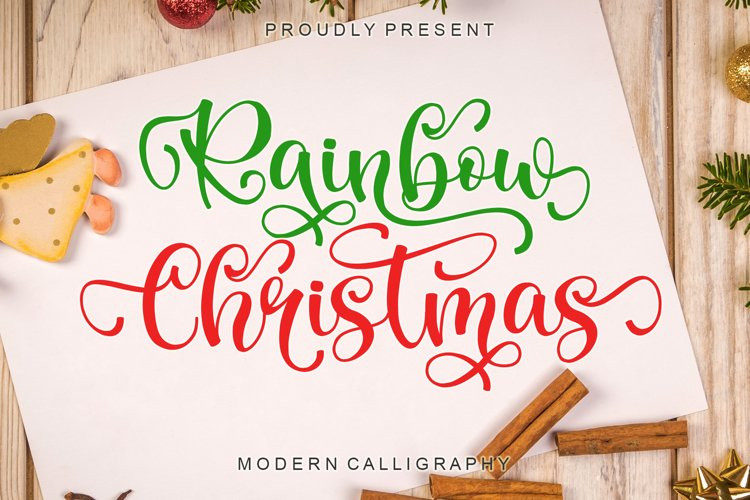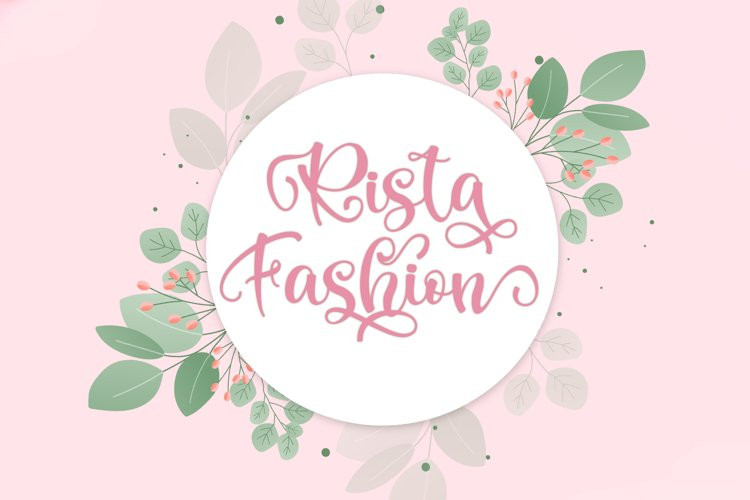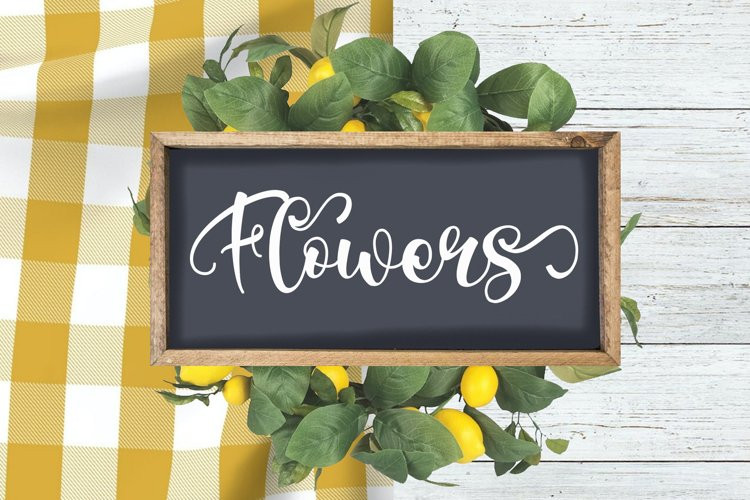
Rainbow Christmas Font
Rainbow Christmas FontRainbow Christmas is a lovely and timeless handwritten font. It is the best choice for creating eye catching logos, branding and quotes.